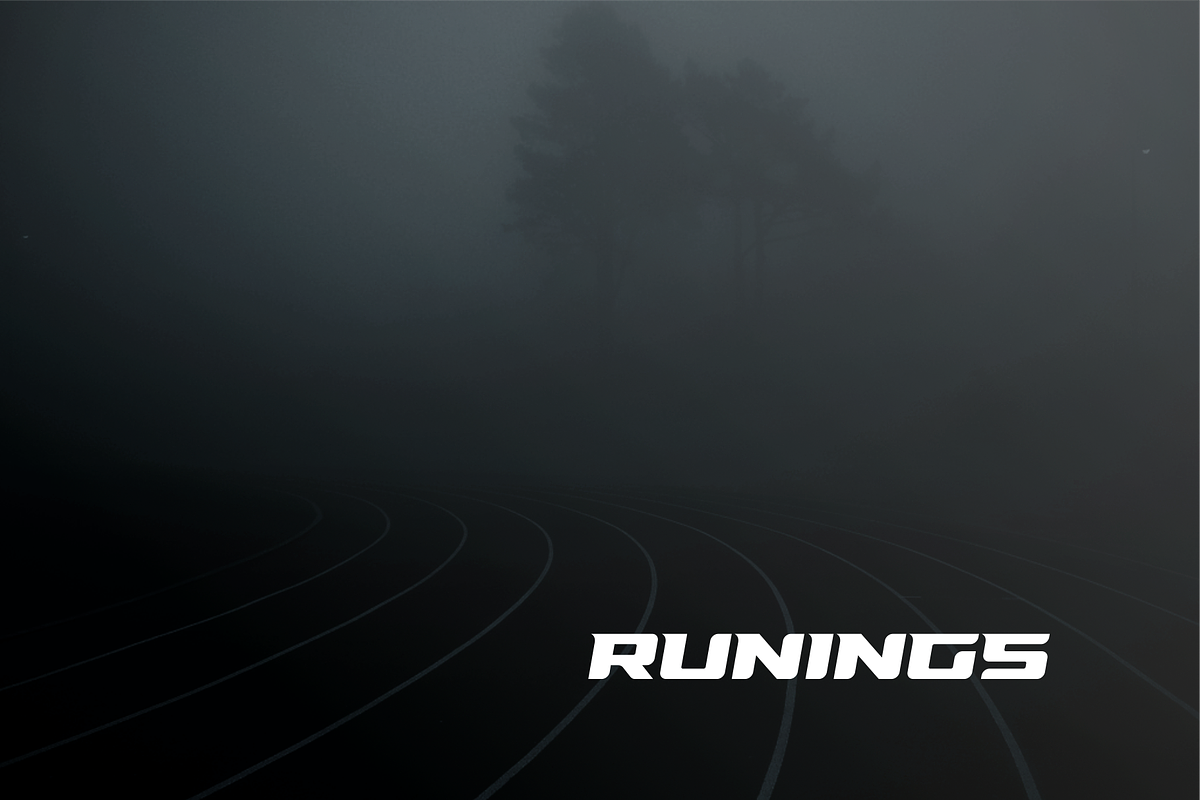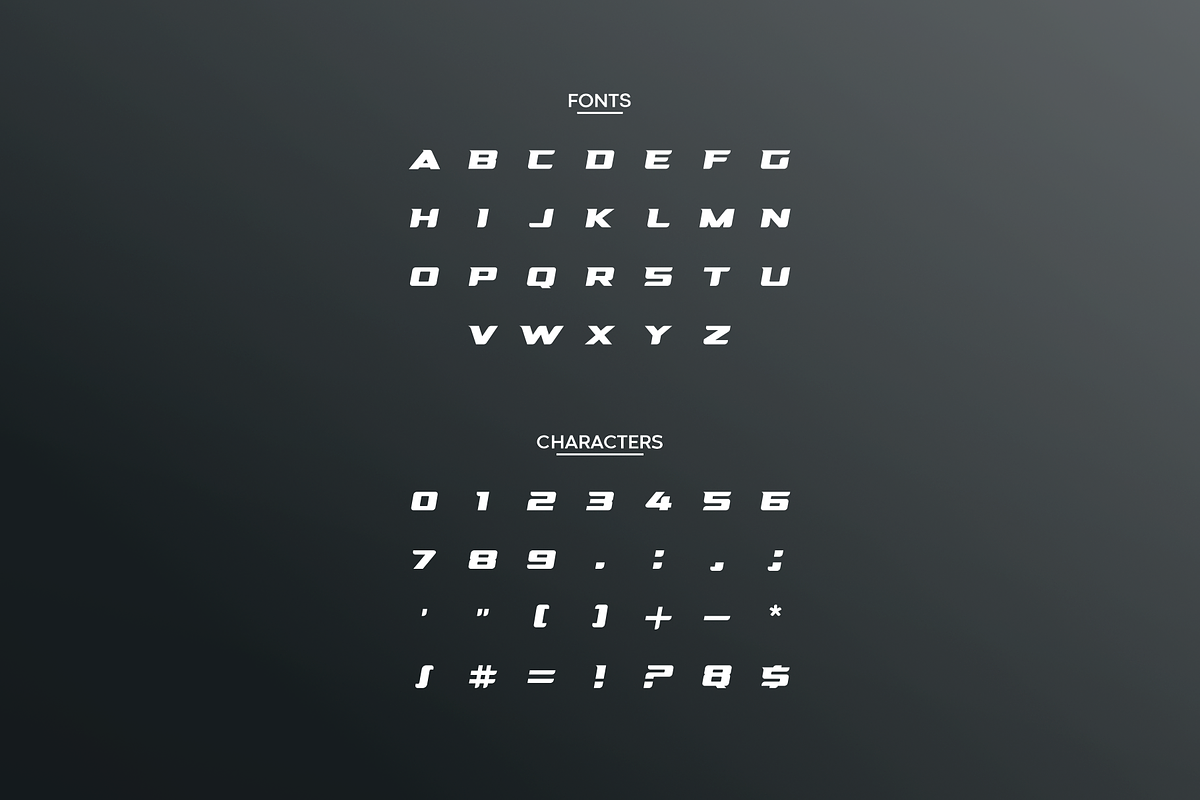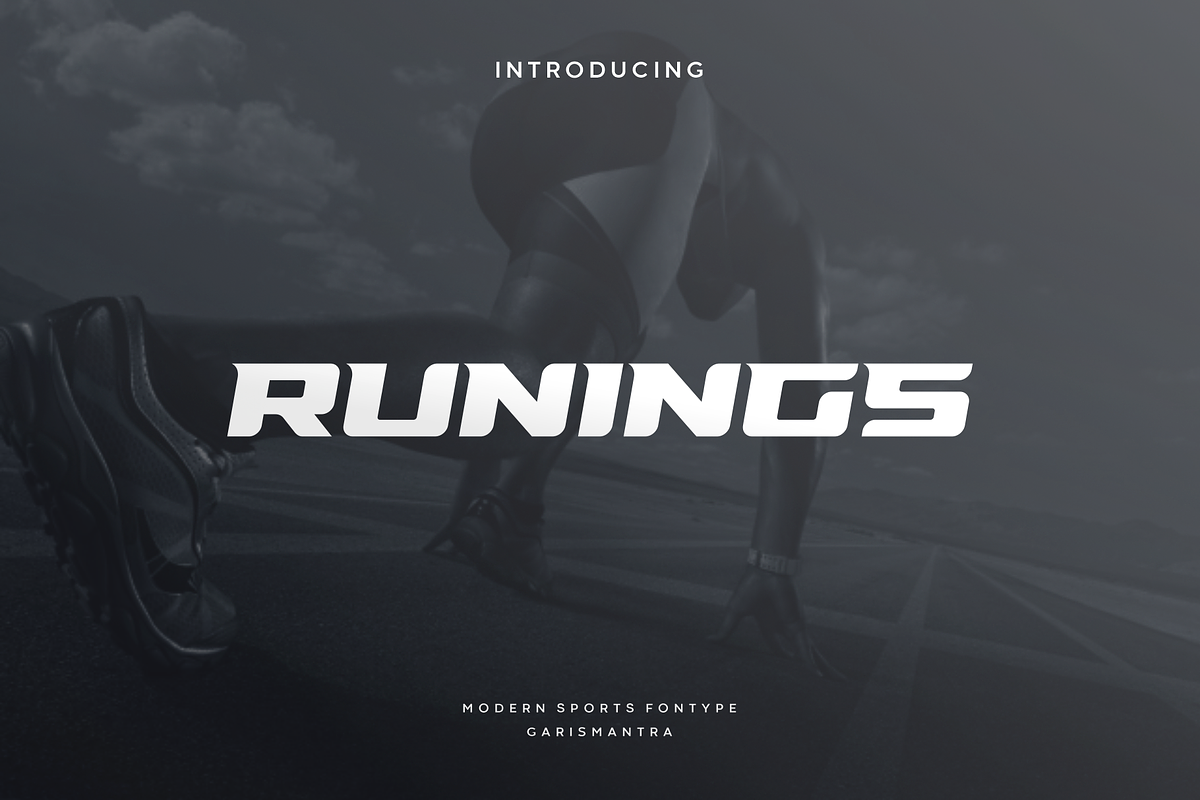
Runings
Runings is a bold and thick lettered display font. It works best on the sporting or racing designs that require a strong touch. Runnings have a distinct appeal that manages to effortlessly combine the formal look with a more playful one. It can either be simplistic or complex in appearance but one thing it does for sure is resonate with the times.